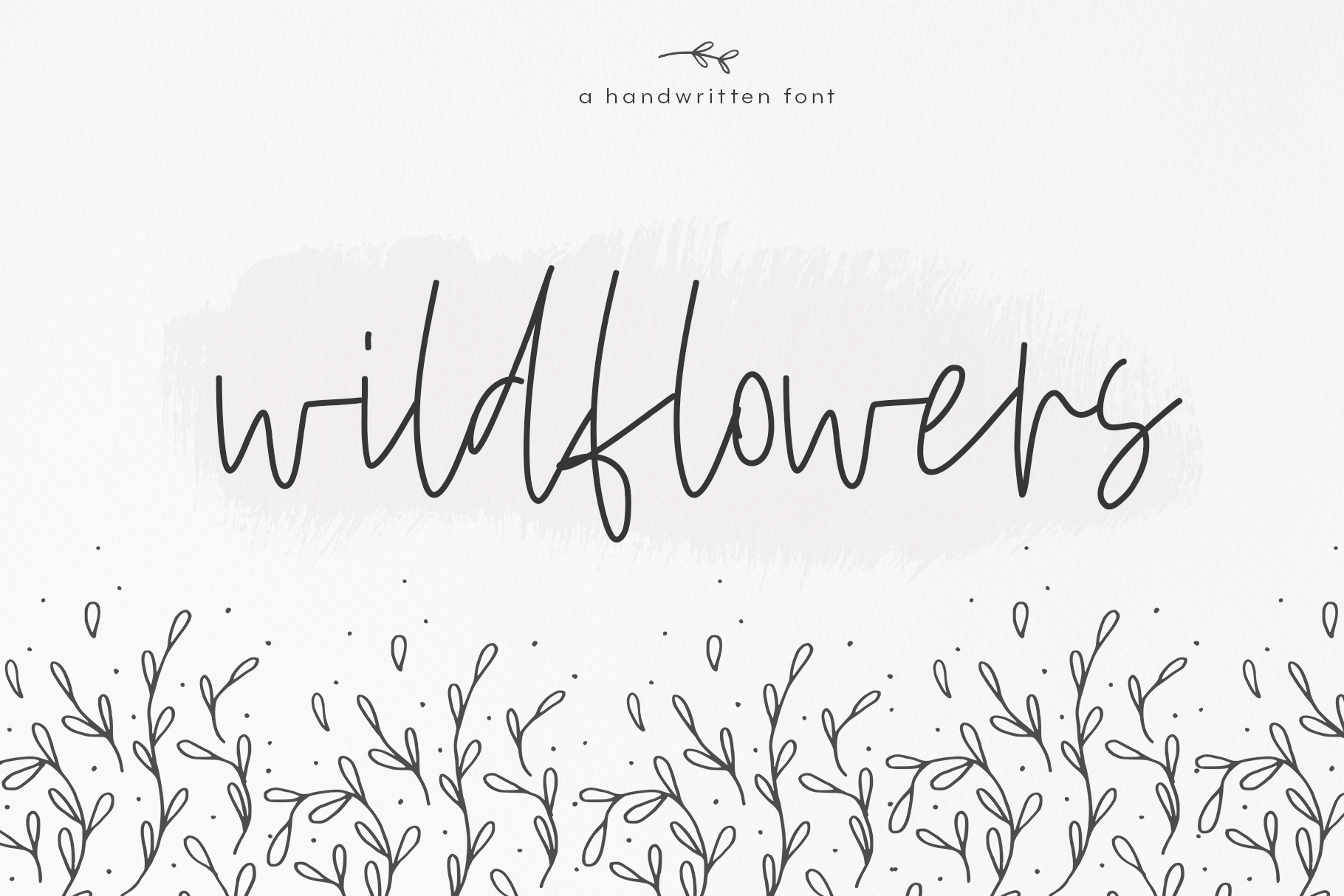
Wildflowers - A Handwritten Font
Wildflowers is a handwritten script font.
This font is perfect for quotes, headings, blogs, logos, invitations and more!
This font does include accent characters.